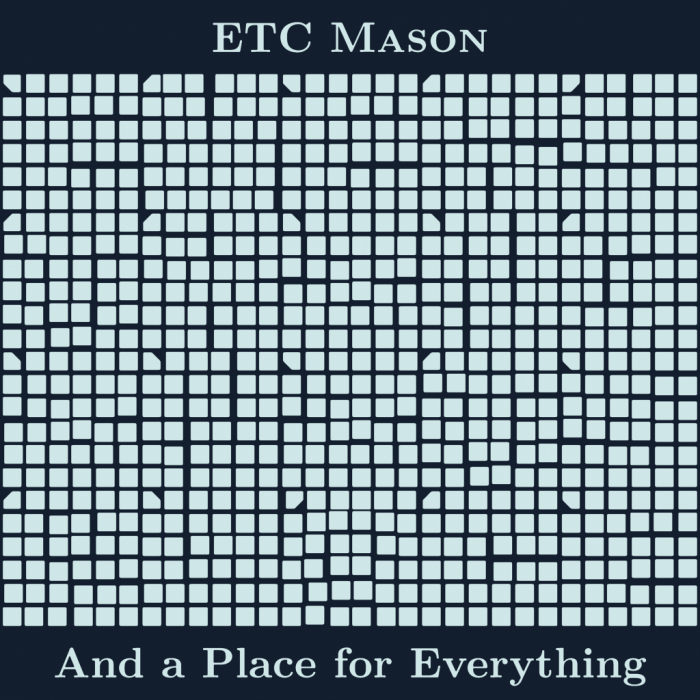
• ETC Mason is my second atypeface, inspired by crooked/warped tiled walls and flooring
You may need to unfocus your eyes a little to interpret each character
Character set (A-Z, alternate a and e)